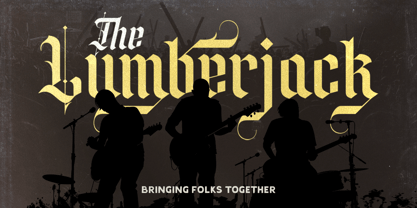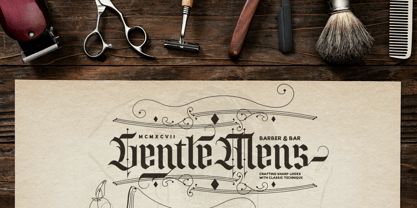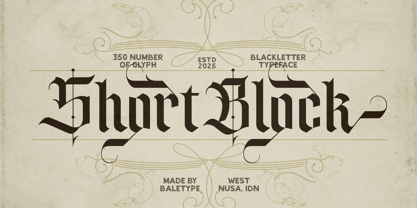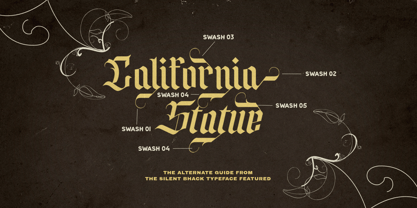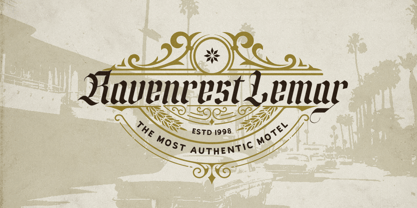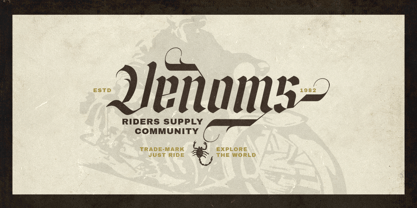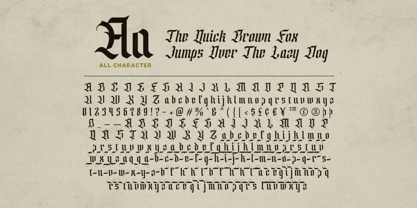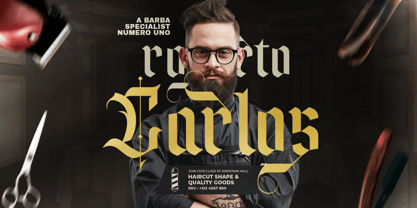
Short Block
by Bale Type
The Short Block Font Family was designed by Dzikrul Aulia and published by Bale Type. Short Block contains 2 styles and family package options. More about this family
Short Block is a stylish blackletter font with bunch of alternates. You can make stunning graphic with this font. And even more eye catching with stylistic alternates that you can use for your project, logotype, and more. This font also comes with italic version. Short Block is also support multi language.
Designers: Dzikrul Aulia
Foundry: Bale Type